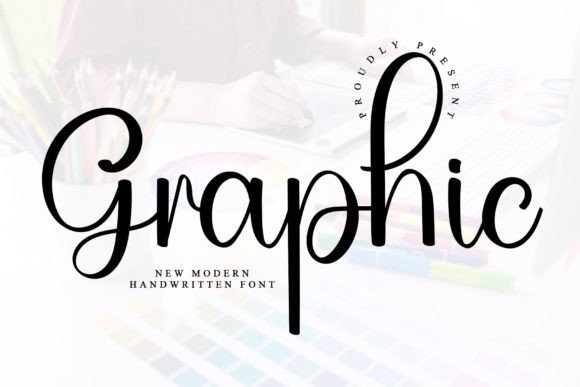
Unleashing Your Creative Side with Graphic Font
Have you ever found yourself in the middle of a creative session, surrounded by papers, paint, and glue, but somehow lacking that perfect finishing touch? You know, that magical element that turns your DIY project or social media post from good to great? For many of us, the answer lies in the perfect font – and that’s where Graphic Font comes in.
Designed with elegance and a touch of playfulness, Graphic Font is the perfect tool for designers and creatives looking to add a personal touch to their work. Whether you’re crafting a beautiful Instagram post, creating a handmade card, or working on a calligraphy project, this versatile font is sure to elevate your design to the next level. With its unique character and versatility, Graphic Font is a valuable asset for any designer looking to add a little extra flair to their work.
Key Features of Graphic Font
- Unique Characteristics: The font features a unique blend of modern and vintage elements, with intricate details and flourishes that add a touch of elegance to any design.
Designer Review: Graphic Font
Overall, I’d say the Graphic Font is a solid choice for designers looking to add some visual interest to their projects. ✨ The font’s eclectic, hand-drawn feel can add a touch of personality to any design. It’s perfect for creatives who want to stand out from the crowd.
One of the standout features of Graphic Font is its versatility. It comes in a range of weights and styles, making it easy to find the perfect fit for your design. The font also supports a wide range of languages, which is a definite plus for designers working on international projects.
While Graphic Font is a great choice for many designers, there are a few limitations to be aware of. ⚠️ For one, the font may not be suitable for large blocks of text, as the irregular letterforms can make it difficult to read. Additionally, the font may not be as readable on smaller screens, such as mobile devices.
- ✨ Unique, hand-drawn feel that adds visual interest to designs
- ✨ Versatile, with a range of weights and styles to choose from
- ✨ Supports a wide range of languages
- ⚠️ May not be suitable for large blocks of text
- ⚠️ May not be as readable on smaller screens
In conclusion, I’d say the Graphic Font is a great choice for designers who want to add some personality to their projects. While it may have some limitations, the font’s unique feel and versatility make it a solid addition to any design toolkit.